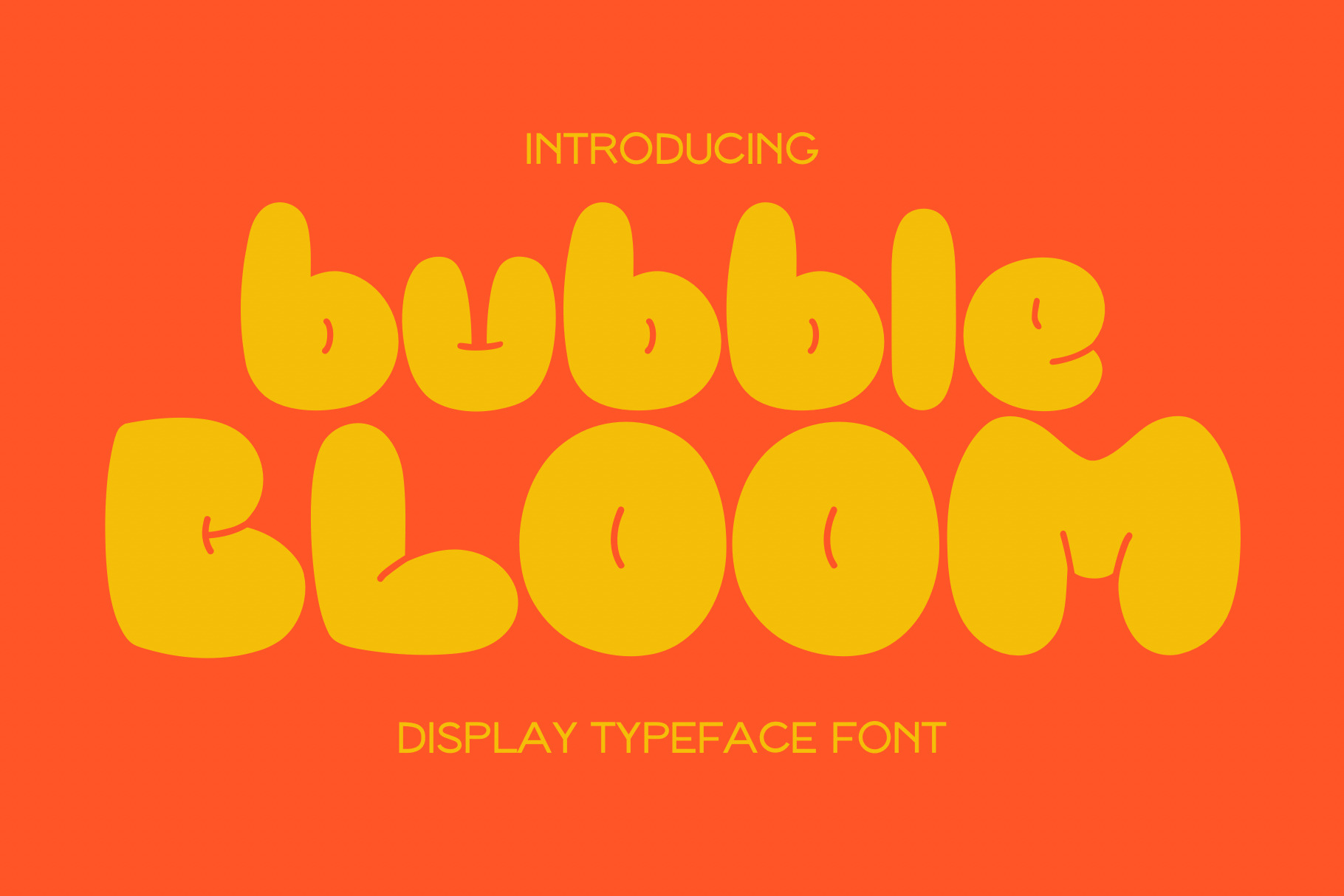
Bubble Bloom - Display Font
Bubble Bloom Font is a bold display font. This font can be used for anything such as shirt designs, cards, art, quotes, social media and so much more!
What's in the font? Uppercase Letters, Lowercase Letters & Numbers.